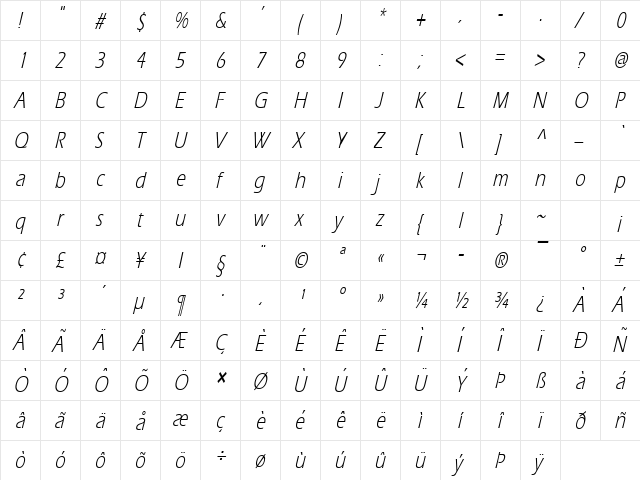
Eric Thin Italic
Design Context for Eric Thin Typeface
Eric Thin offers clean, dependable letterforms without strong stylistic allegiance, making it a practical choice for designers who need flexibility. The dynamic lean of this cut emphasises speed and emphasis in any layout. The delicate stroke weight brings airiness and refinement to layouts.
Pro Tip: Use Eric Thin for emphasis, pull quotes, and subheadings where its slanted energy can add rhythm to the layout.